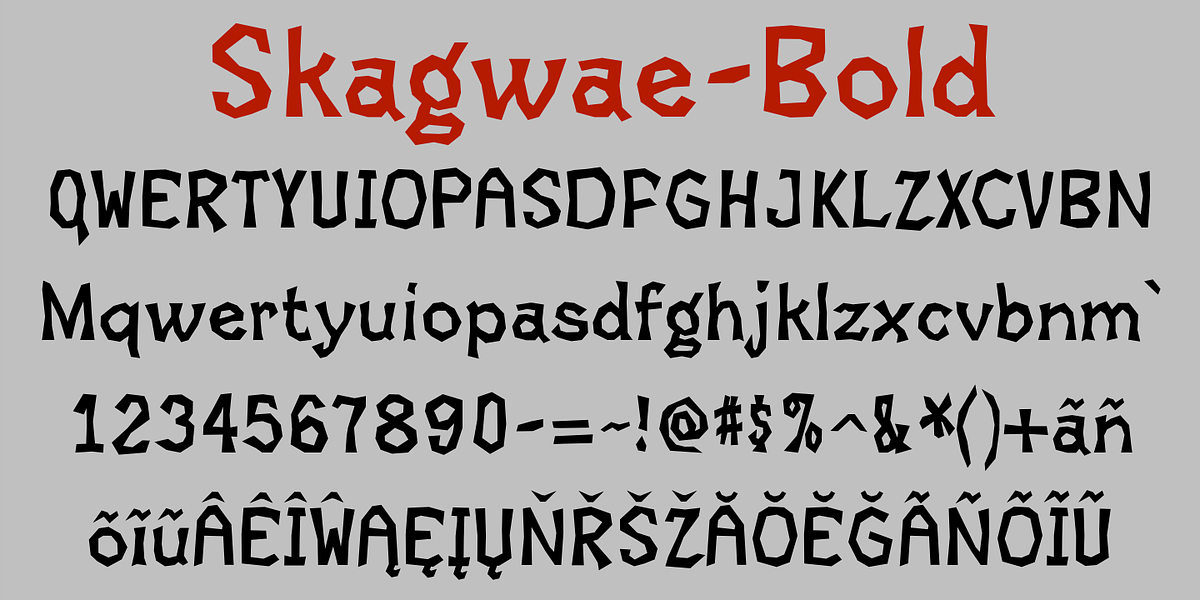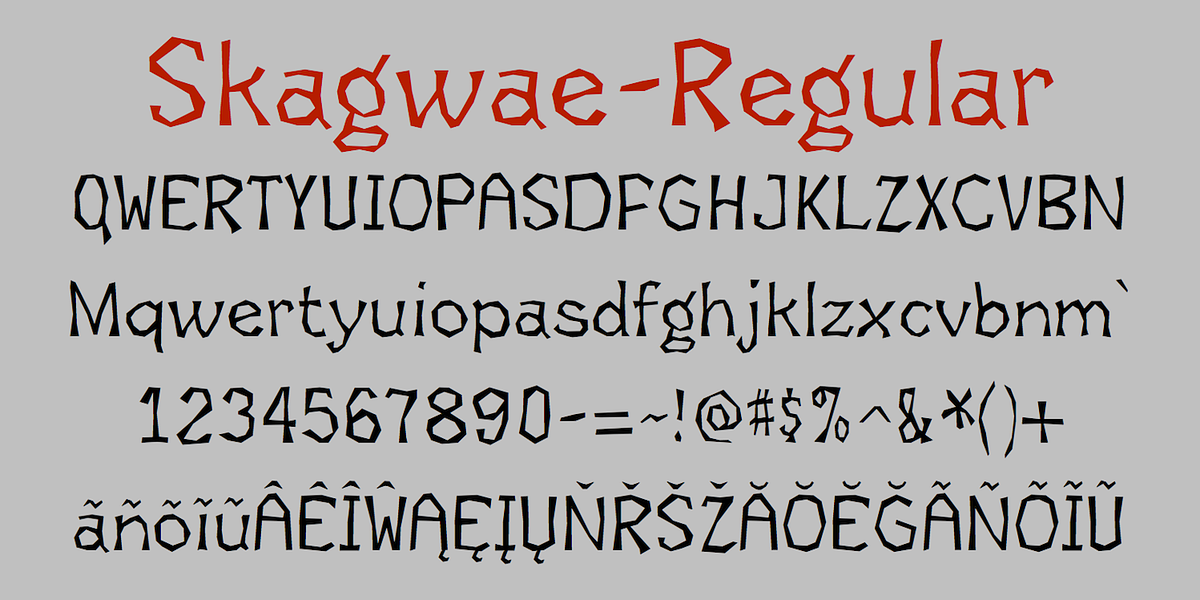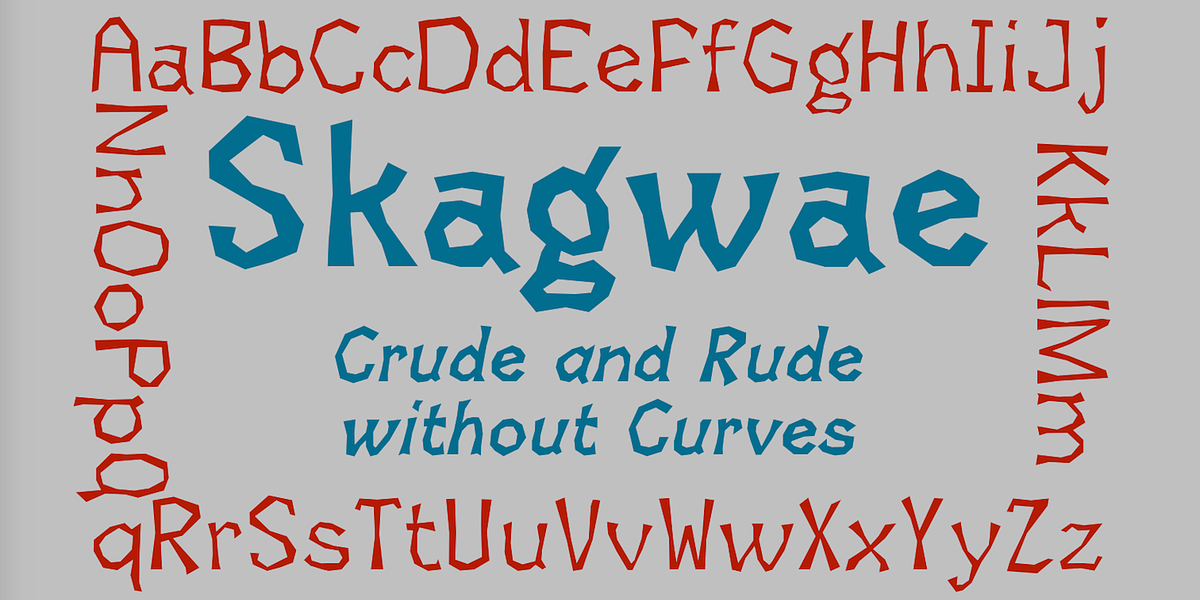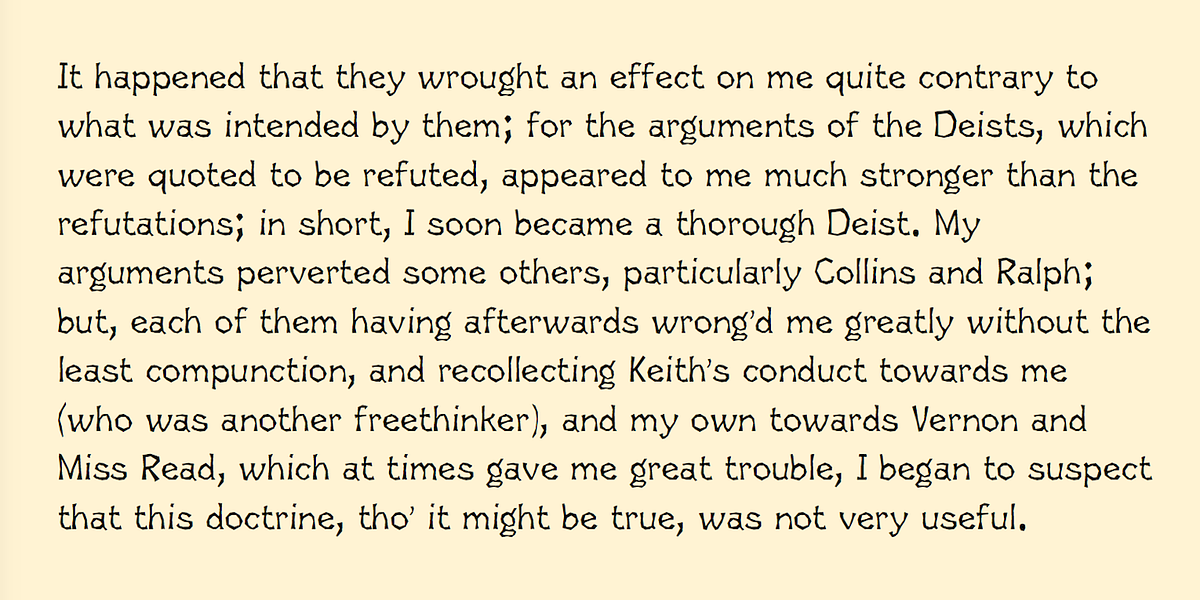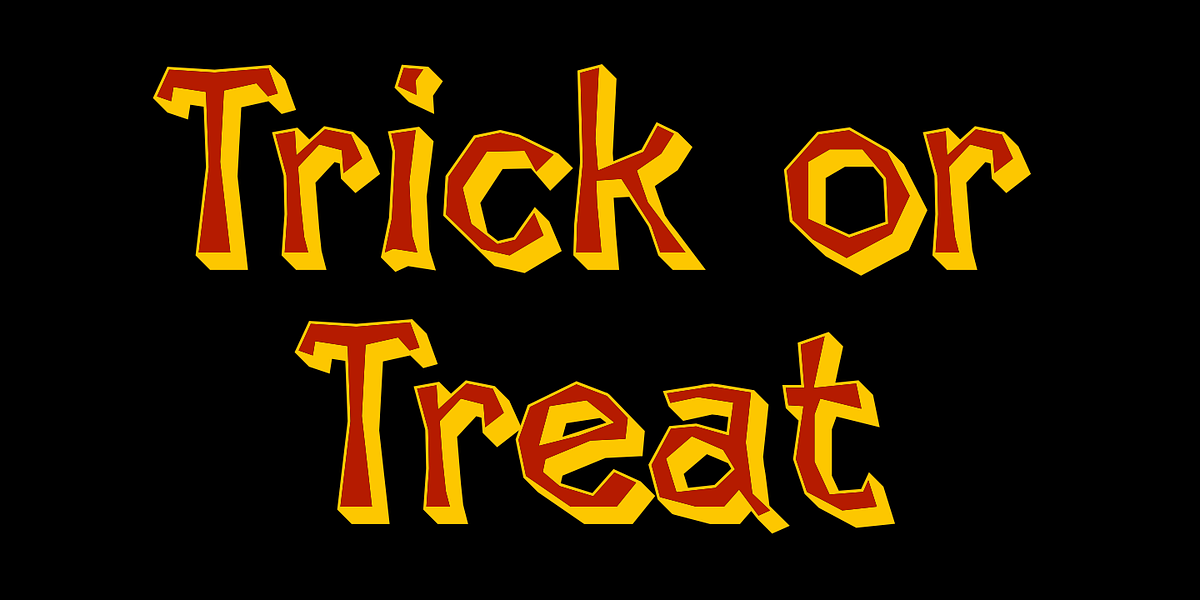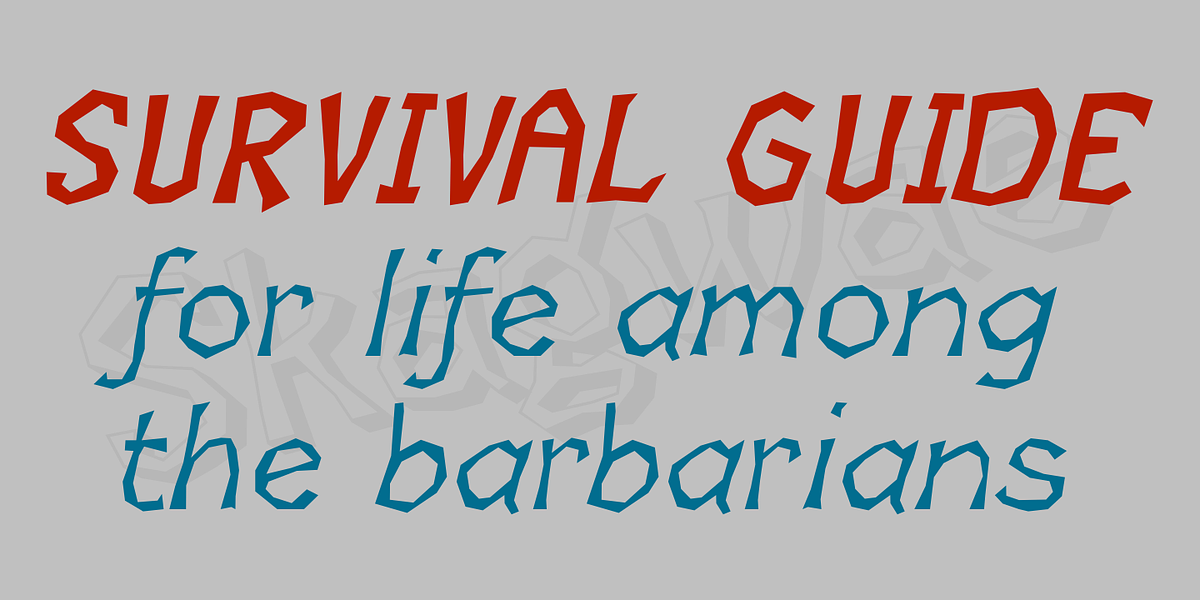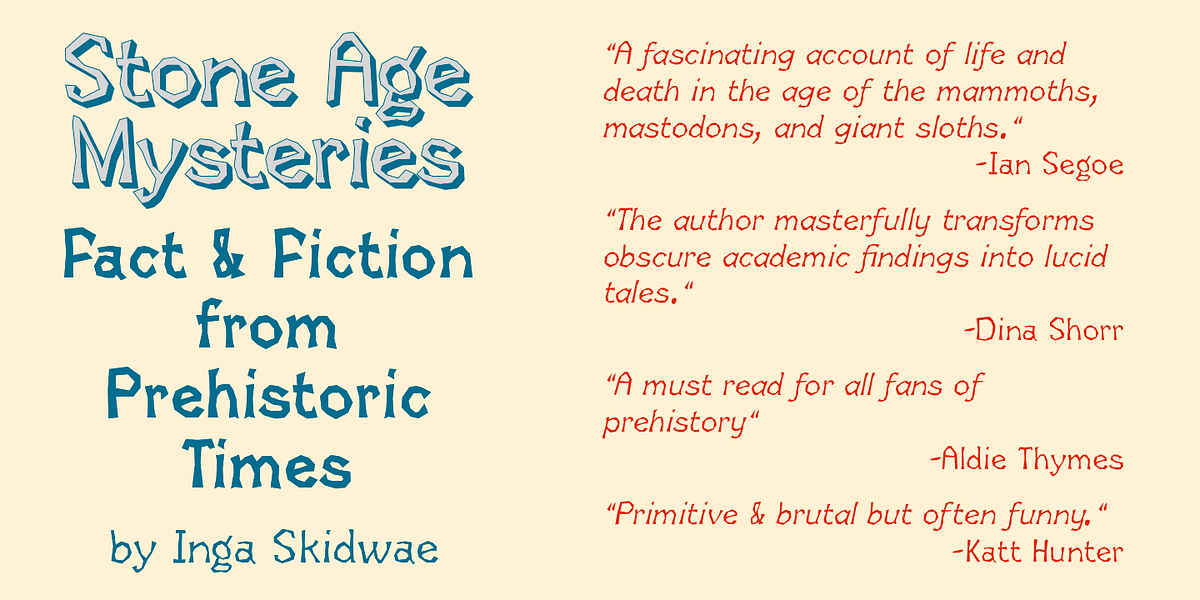
Skagwae
Skagwae is a geometric sans-serif font characterized by its unique use of straight line segments to construct letterforms. This gives the typeface a crude, unfinished appearance, particularly noticeable at larger sizes. Despite this unconventional aesthetic, Skagwae remains surprisingly legible even at smaller point sizes. The family offers six styles: regular, bold, italic, bold italic, shadow, and shadow inside. The shadowinside style is designed for layering with the shadow style. Monospaced versions are also available.